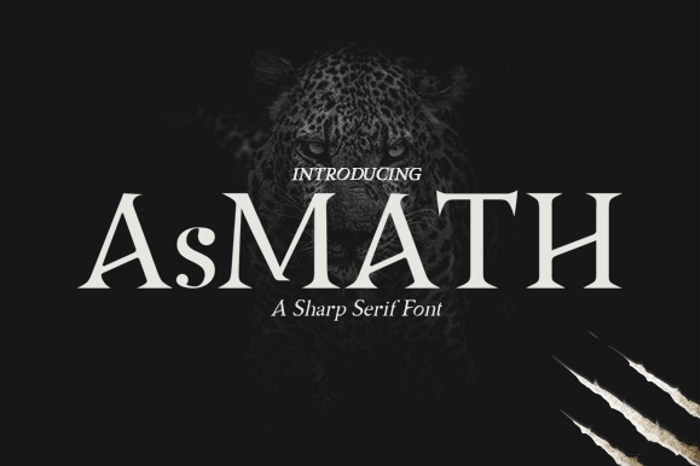
Asmath Free Font
About Asmath Free Font
AsMATH is a serif font, useful to create a vintage design,modern design, You can use for headline,
logotype, poster, t-shirt, labels, magazine and much more.